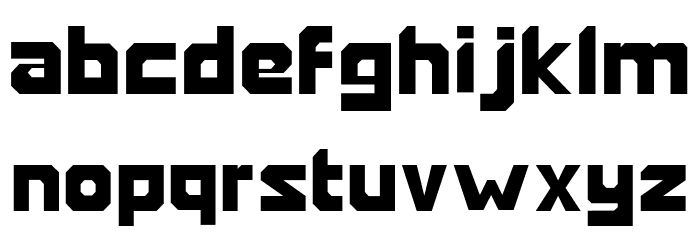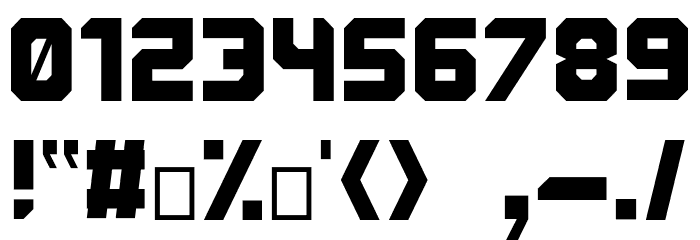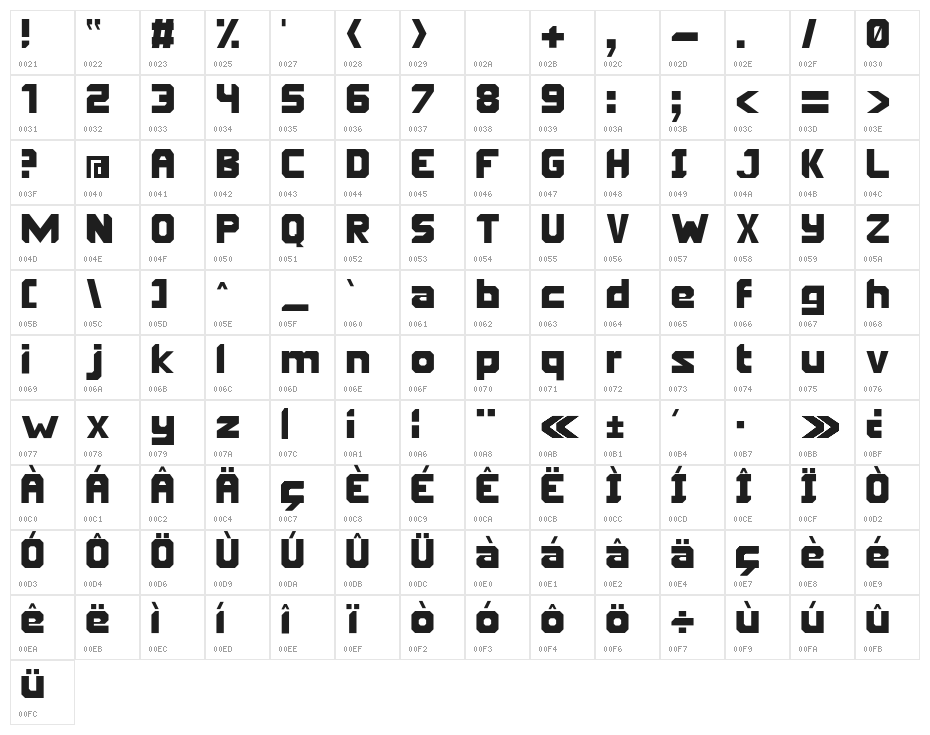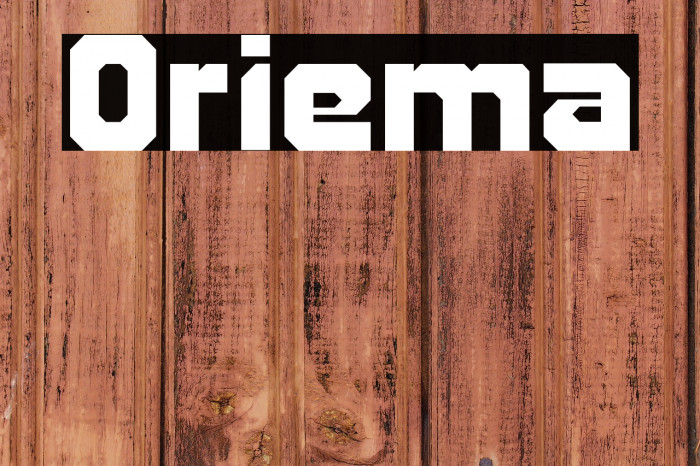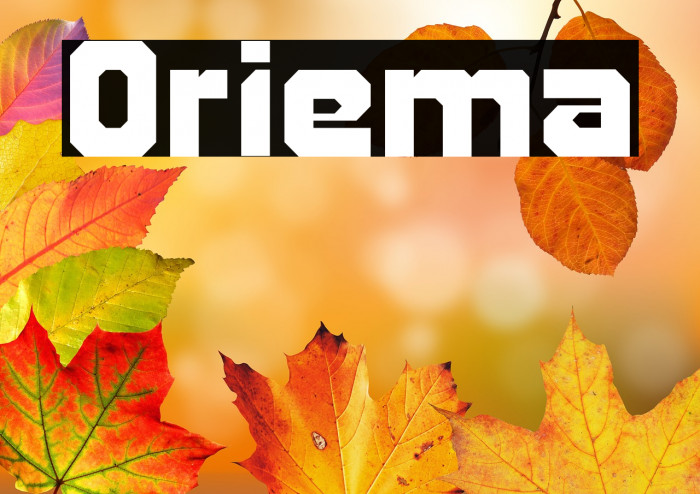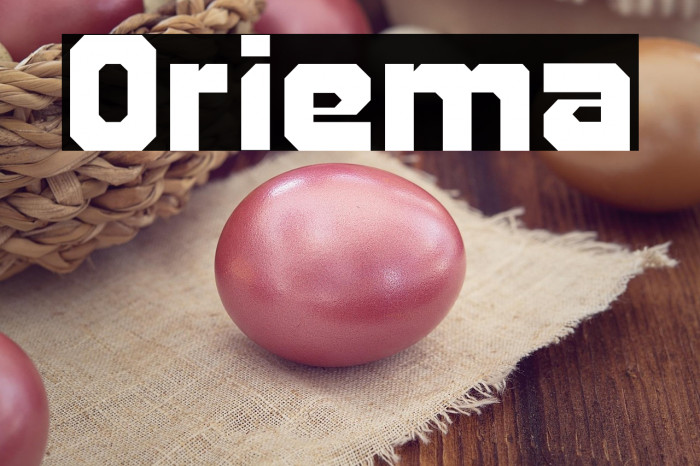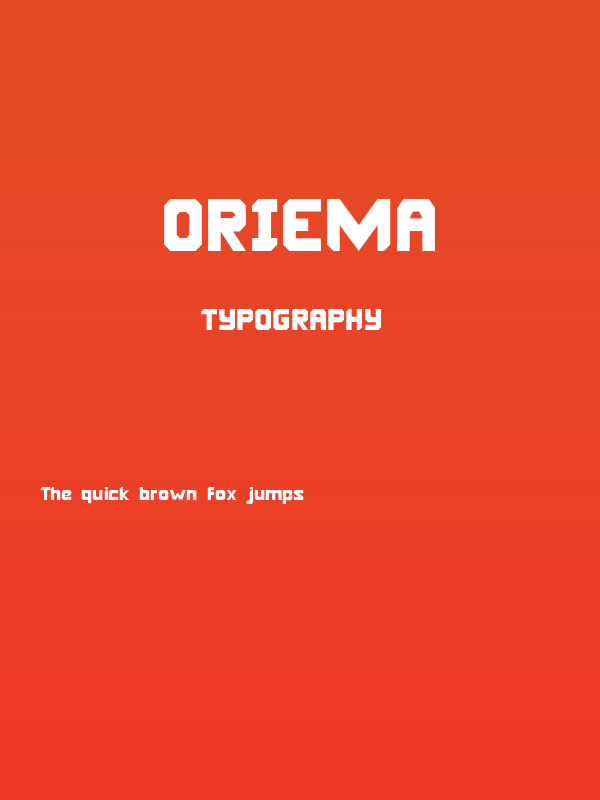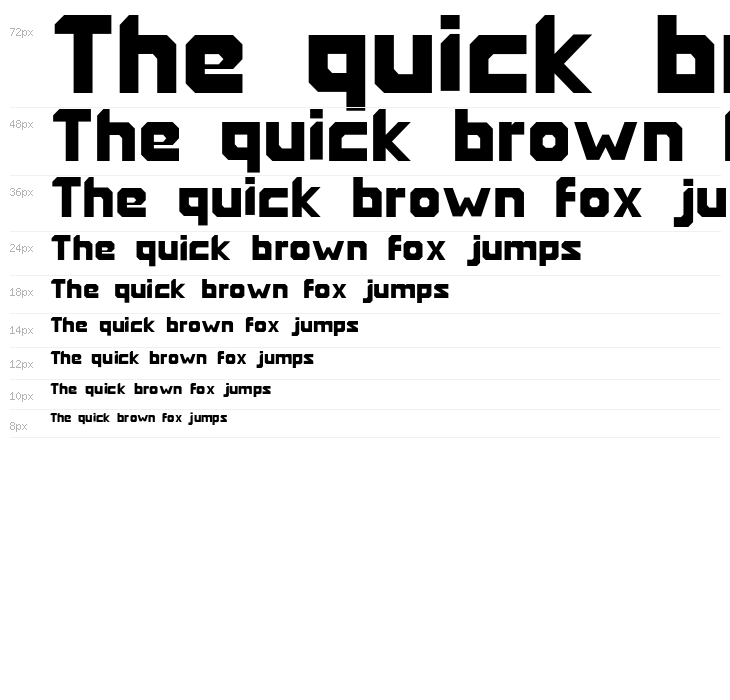
Oriema Font
This font features a bold and geometric design with strong, angular lines and a modern aesthetic. The uppercase and lowercase letters maintain a consistent width, creating a uniform appearance. The characters are blocky and robust, with sharp edges that give them a futuristic feel. The numbers and special characters follow the same design principles, ensuring cohesion across all elements. This font's unique style makes it stand out, offering a striking visual impact.
A bold, geometric font with a modern and angular design.
- Proposed Projects: Ideal for futuristic branding, tech-related projects, video game titles, and modern poster designs.